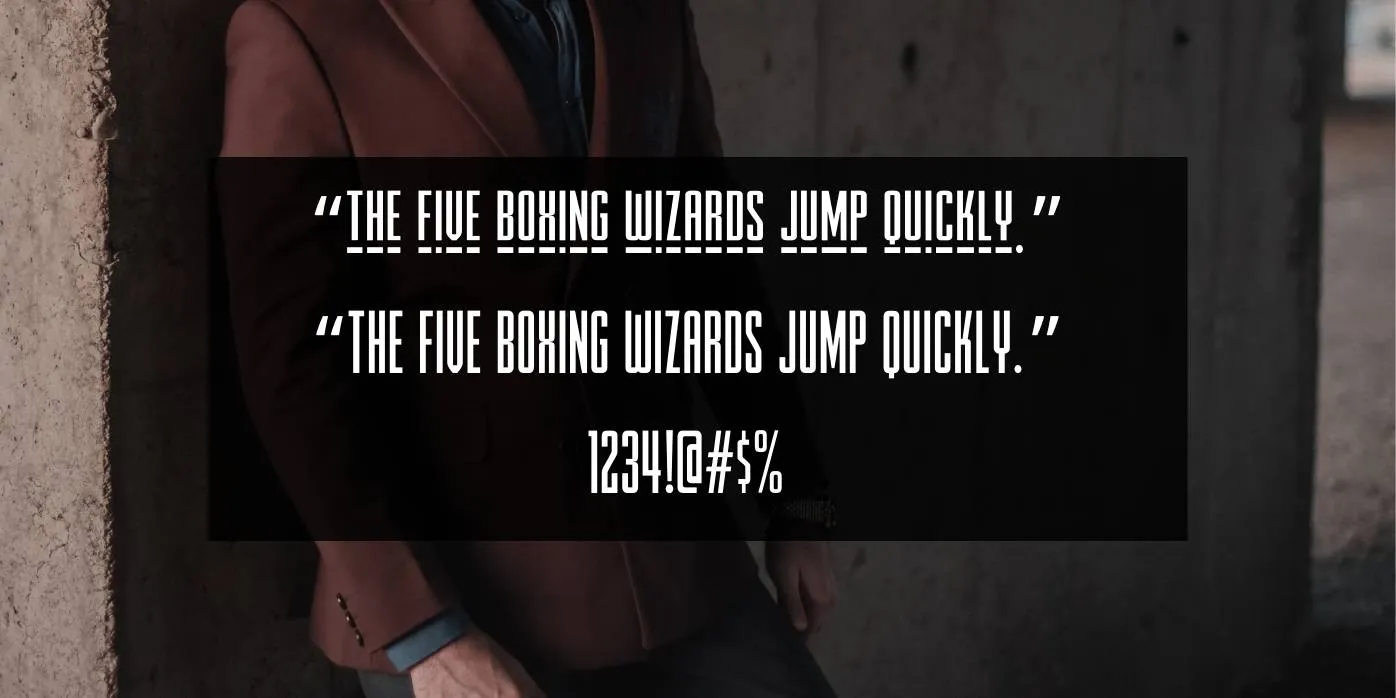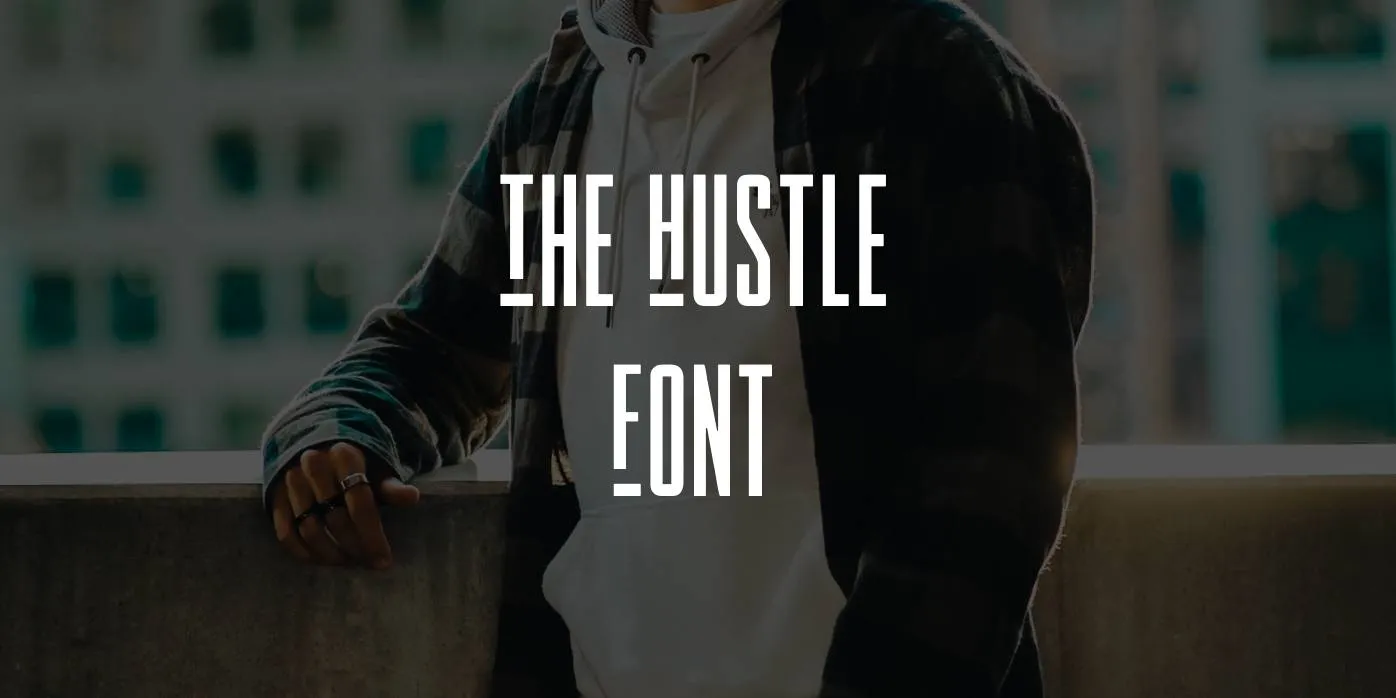
The Hustle Font
In this post, we present The Hustle Font which belongs to the fancy family. This typeface was designed by Andhi Yulianto and it was first released on 2nd February 2017. The Hustle Font has a unique style that makes it perfect for use in headlines, titles, and logos. This font is available in two styles: regular and italic.
Each style contains 486 characters and supports multiple languages. This staggering font also comes with a set of alternates and ligatures. Its copy-and-paste function is suitable for all text design projects. For more classic features, you will have to use its alternative porkays font which has the same features.